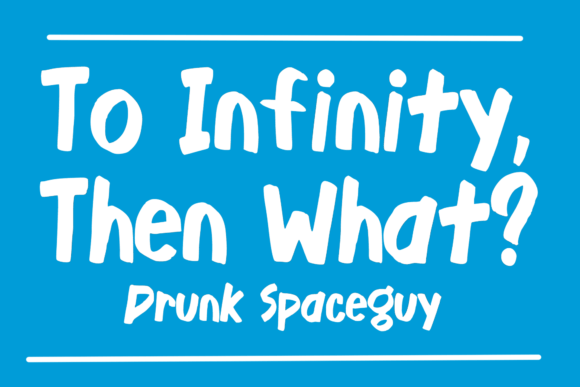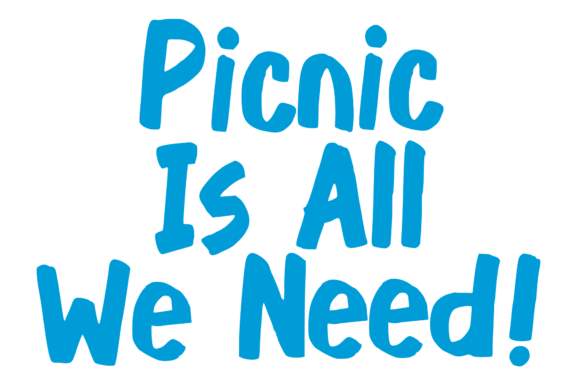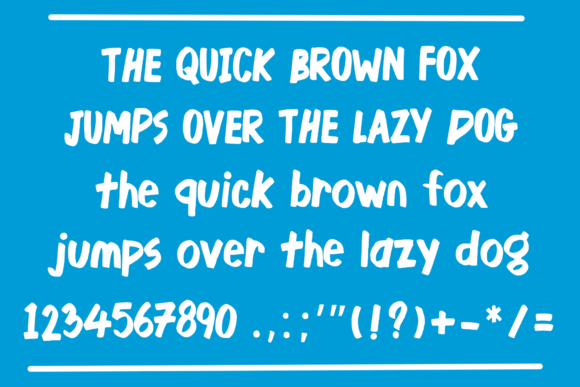
Introduction to Hype Marker Font
Hype Marker is a cool marker hand lettered font.
You can use it for anything ranging from t-shirts, book designs, and greeting cards to stickers and posters, packaging designs, or anything that needs a casual touch, it will be your perfect font to pick Fall in love with its incredibly versatile style, and use it to create lovely designs.
Key Features of Hype Marker Font
Why Choose Hype Marker Font?
Hype Marker Font offers exceptional quality and versatility, making it a valuable addition to your design toolkit. Whether you’re creating for personal projects or commercial use, Hype Marker Font delivers professional results.